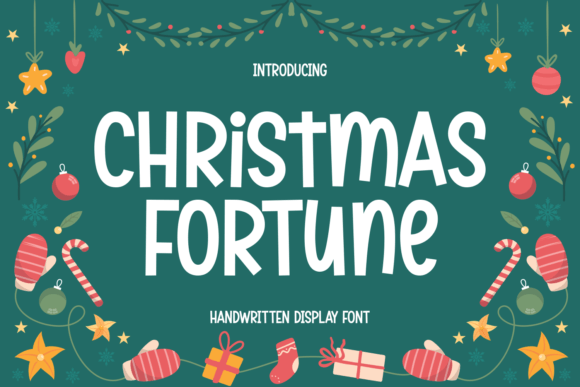
Introducing Christmas Fortune Font: The Perfect Addition to Your Design Collection
Are you looking for a font that can add a touch of warmth and friendliness to your designs? Look no further than Christmas Fortune Font, a beautiful handwritten font that’s perfect for a wide range of projects. In this article, we’ll take a closer look at Christmas Fortune Font, its features, and how you can use it to bring your DIY projects to life.
What is Christmas Fortune Font?
Christmas Fortune Font is a handwritten font designed in a friendly and lovely style. Its unique and elegant lettering makes it perfect for adding a personal touch to your designs. Whether you’re working on a diary planner, journal, or any other project, Christmas Fortune Font is sure to make it stand out.
Features of Christmas Fortune Font
So, what makes Christmas Fortune Font so special? Here are just a few of its key features:
- Handwritten style: Christmas Fortune Font has a beautiful, handwritten style that’s perfect for adding a personal touch to your designs.
- Friendliness and approachability: The font’s friendly and lovely style makes it perfect for designs that need to convey a sense of warmth and approachability.
- Versatility: Christmas Fortune Font can be used for a wide range of projects, from diary planners and journals to wedding invitations, party decorations, and more.
- Ease of use: The font is easy to read and use, making it perfect for designers of all skill levels.
Uses for Christmas Fortune Font
So, what can you use Christmas Fortune Font for? The possibilities are endless! Here are just a few ideas to get you started:
- Diary planners and journals: Add a personal touch to your diary planner or journal with Christmas Fortune Font.
- Weddings and parties: Use Christmas Fortune Font to create beautiful wedding invitations, party decorations, and more.
- Back to school: Create fun and colorful back to school designs with Christmas Fortune Font.
- Festivals and holidays: Use Christmas Fortune Font to create festive designs for holidays like Christmas, Halloween, and more.
- Posters and blogs: Add a touch of personality to your posters and blogs with Christmas Fortune Font.
- Clothing and child-related designs: Use Christmas Fortune Font to create adorable designs for clothing, toys, and other child-related products.
- Greeting cards and social media posts: Add a personal touch to your greeting cards and social media posts with Christmas Fortune Font.
Why You Need Christmas Fortune Font in Your Design Collection
So, why do you need Christmas Fortune Font in your design collection? Here are just a few reasons:
- Add a personal touch: Christmas Fortune Font allows you to add a personal touch to your designs, making them more unique and engaging.
- Stand out from the crowd: With Christmas Fortune Font, you can create designs that stand out from the crowd and grab attention.
- Easy to use: The font is easy to use and read, making it perfect for designers of all skill levels.
- Versatility: Christmas Fortune Font can be used for a wide range of projects, making it a great addition to your design collection.
| Font Name | Christmas Fortune Font |
| Author | Rydmaker (7NTypes) |
In conclusion, Christmas Fortune Font is a beautiful handwritten font that’s perfect for adding a touch of warmth and friendliness to your designs. With its unique and elegant lettering, versatility, and ease of use, it’s a great addition to any design collection. Whether you’re a designer, crafter, or DIY enthusiast, Christmas Fortune Font is sure to bring your projects to life. So why wait? Add Christmas Fortune Font to your collection today and start creating beautiful designs that stand out from the crowd!